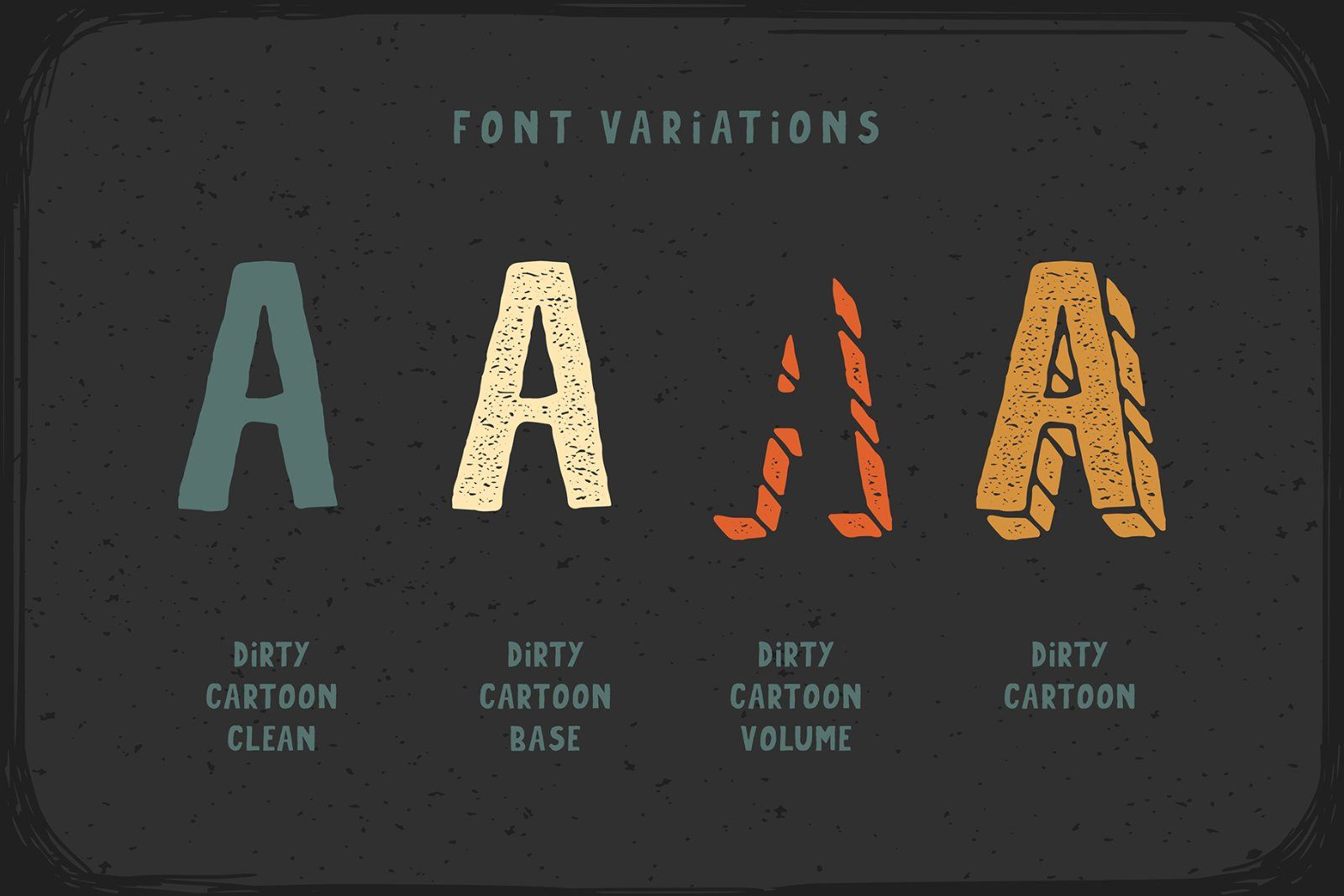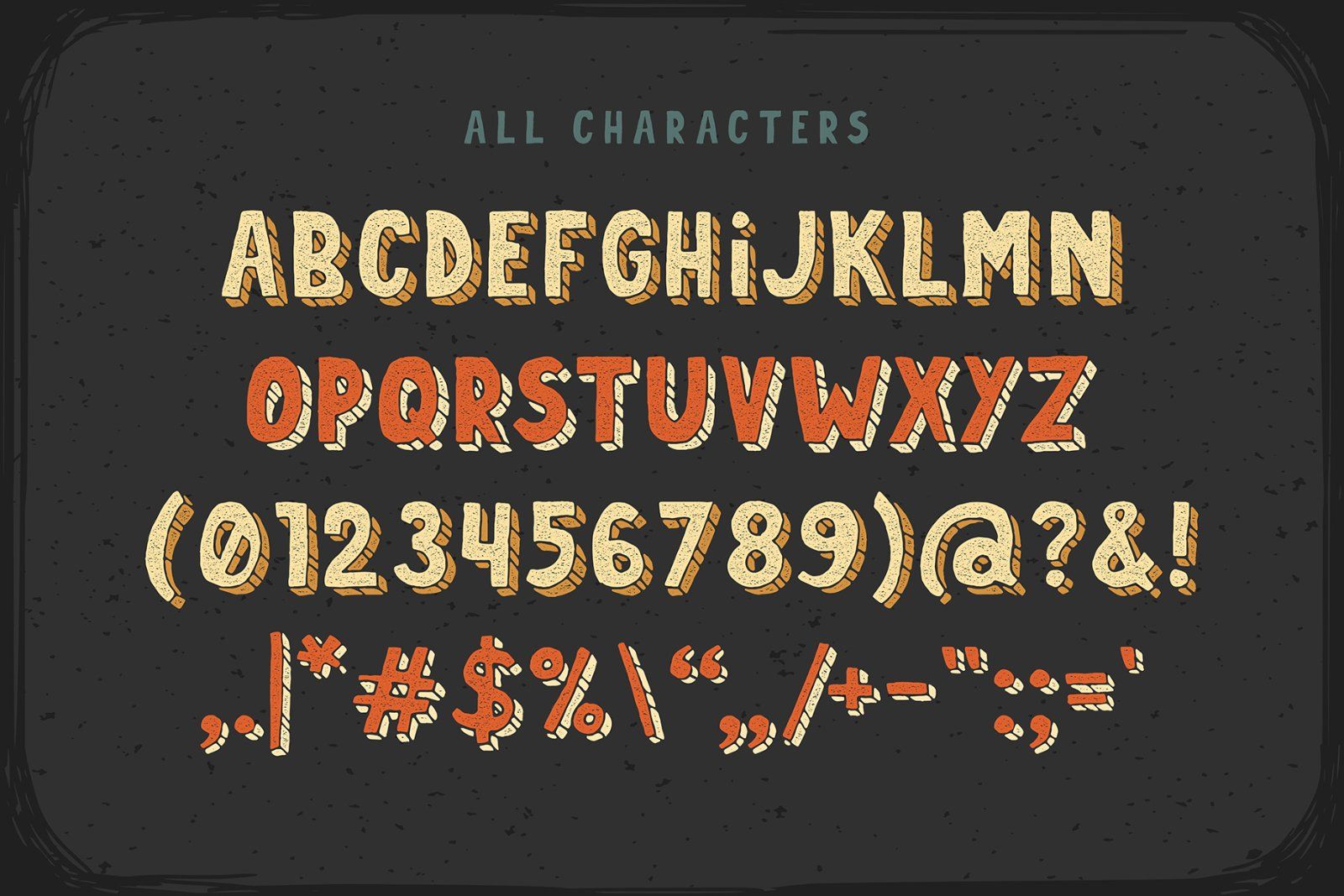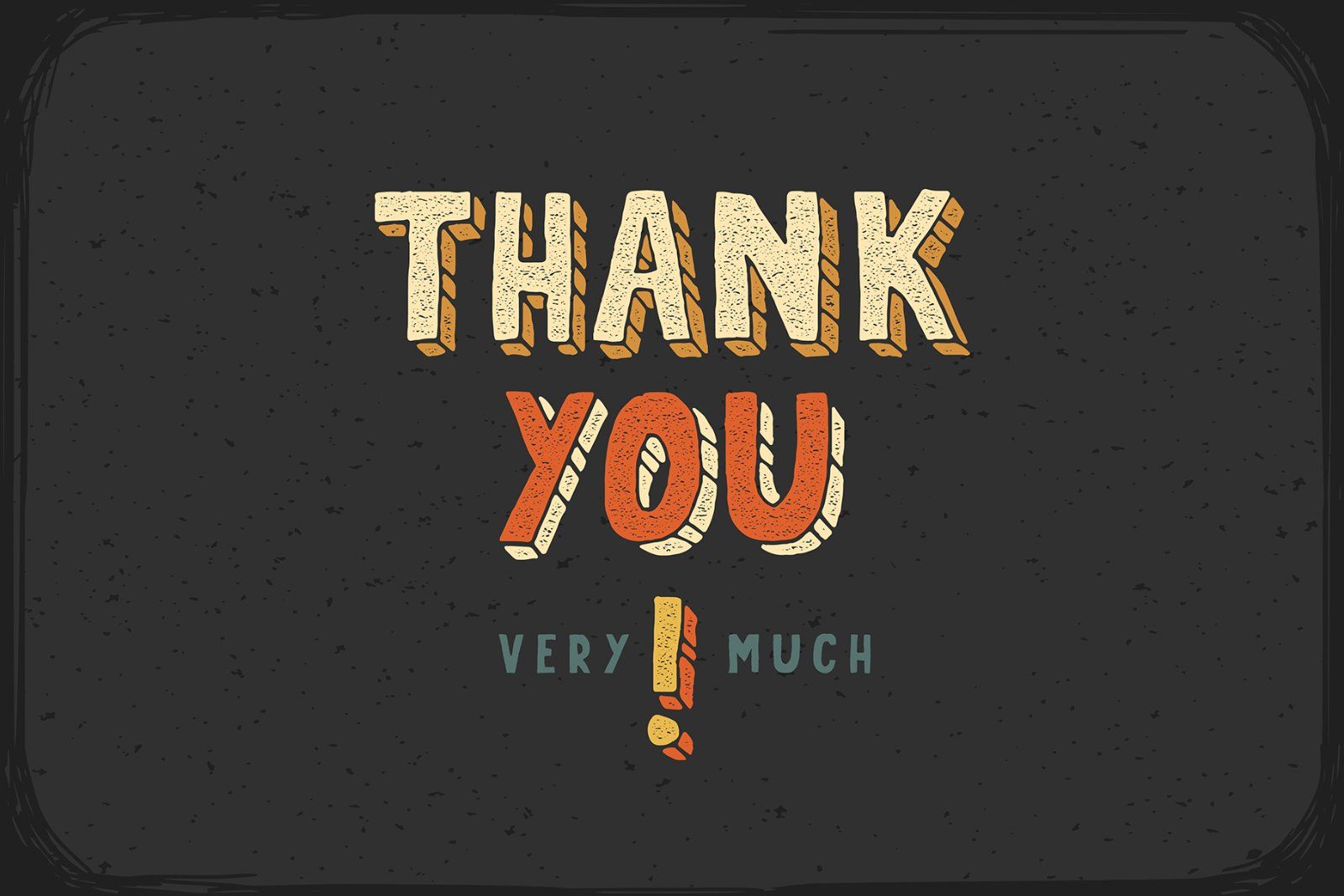
Hi! Let me introduce a "Dirty Cartoon" hand drawn typeface. It has four different font variations to make it easy to use and recolor. Also you will get a bonus vector illustration of a baseball player girl from the first screenshot.
Note: Font contains only Latin characters (all characters you can see on the second screenshot).